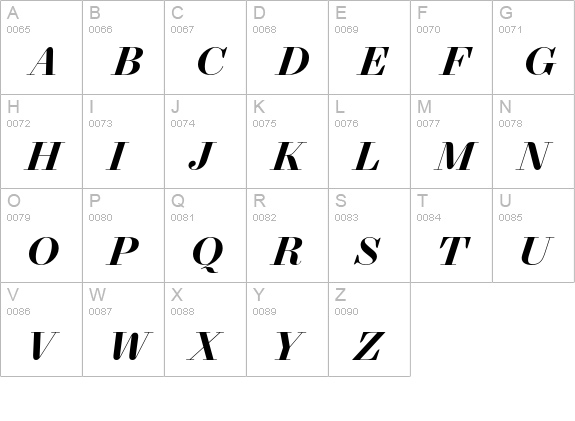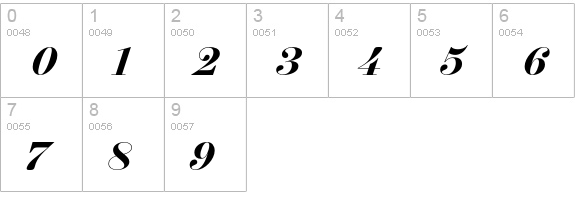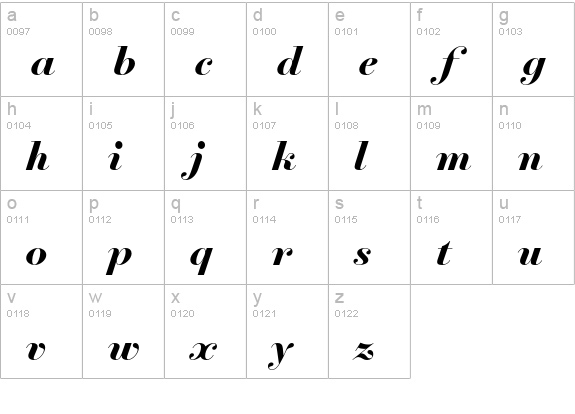
NewParis Headline Bold Italic Font Details
NewParis Headline Bold Italic is a strong, high-contrast, italic variant in the NewParis typeface family \xE2\x80\x94 well suited to headlines, attention-grabbing titles, and strong calls-to-action.
Introducing NewParis Headline Bold Italic font - a stunning display typeface that exudes elegance and sophistication. This font is perfect for creating eye-catching headlines, titles, and branding materials that demand attention. With its bold and italic design, NewParis Headline commands a strong presence while maintaining a touch of refinement. What's even better is that NewParis Headline Bold Italic font is completely free to download at FontsMarket.com. You can elevate your design projects with this exceptional font without any cost. Don't miss out on the opportunity to add this exquisite typeface to your font library today. Download NewParis Headline Bold Italic font now and let your creativity shine!